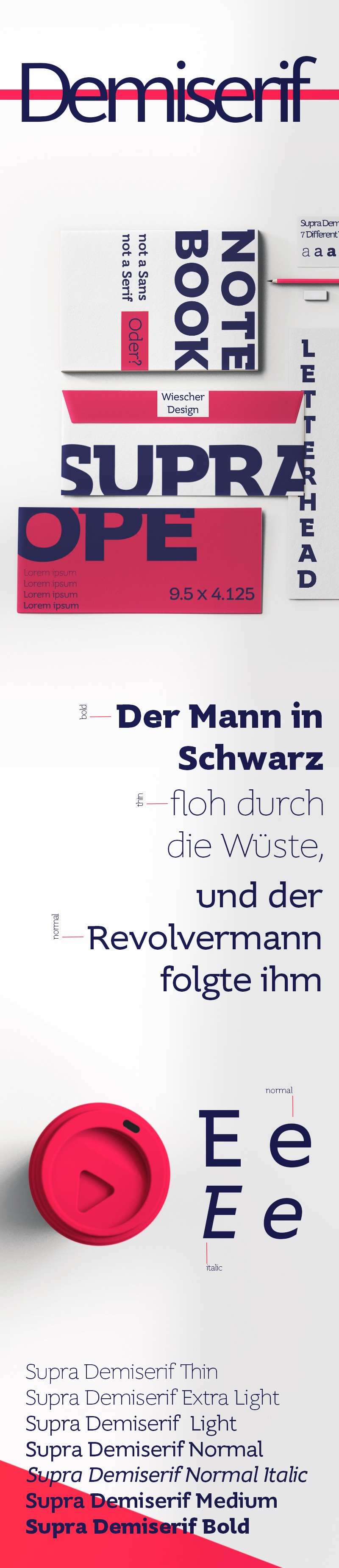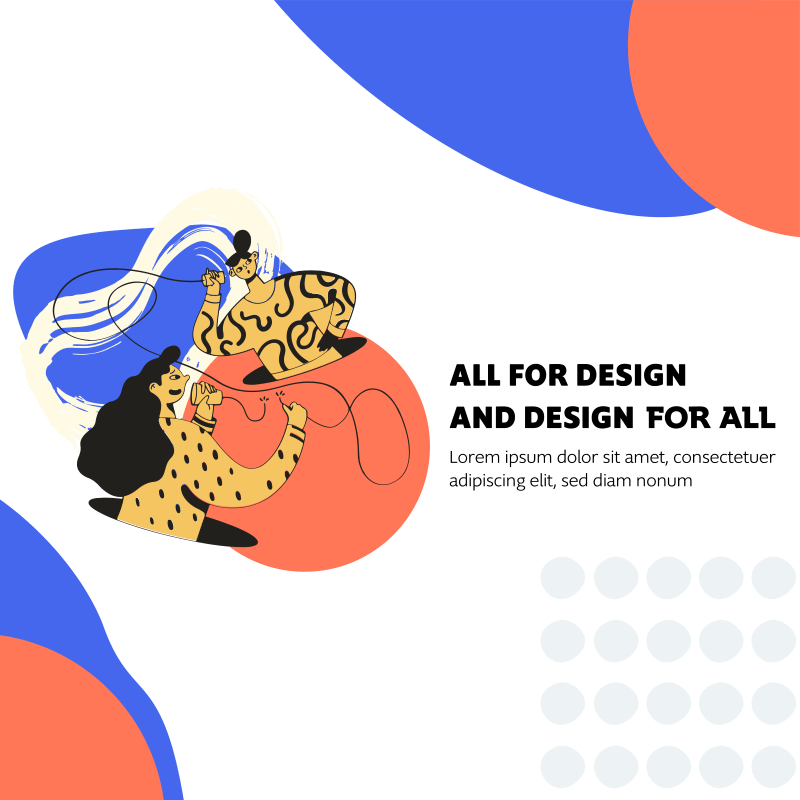
Supra Typeface Bundle, 40+ Fonts – Classic, Rounded & Demiserif Variations
Professional Typography
This Supra font family deal delivers a pack with 3 variations of the Supra font family by german type designer Gert Wiescher including Supra Classic, Rounded & Demiserif variations!
The pack delivers 43 font files in OTF file format from the Supra font family with a character set of over 700 glyphs & extensive kerning, language support for over 40 Central & Eastern EU as well as many Western languages, and OpenType features including ligatures, different figures, fractions, currency symbols & small caps.
Supra’s design features an elegant contrast in the up- and downstrokes which makes for better legibility & personality, the dominant x-height with its high ascenders make for easy reading of long copy. The heavy and x-light weights are great for elegant headlines.
• A Supra Font Family Bundle With 3 Variations: Classic, Rounded & Demiserif
• Over 700 glyphs
• Ligatures, different figures, fractions, currency symbols & small caps can be found in all cuts.
• Classic: 20 weights from thin to black
• Rounded: 16 weights, x-light to black
• Demiserif: 7 weights, thin to bold
• Supports over 40 Central & Eastern EU as well as many Western languages
• Perfect for display, body copy, editorial design, headlines, etc